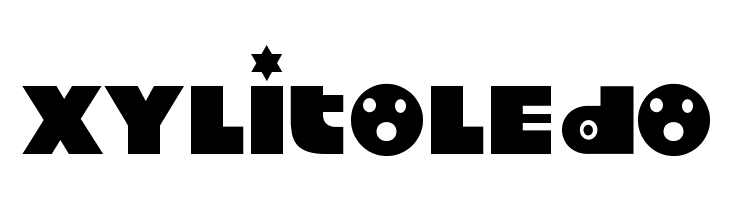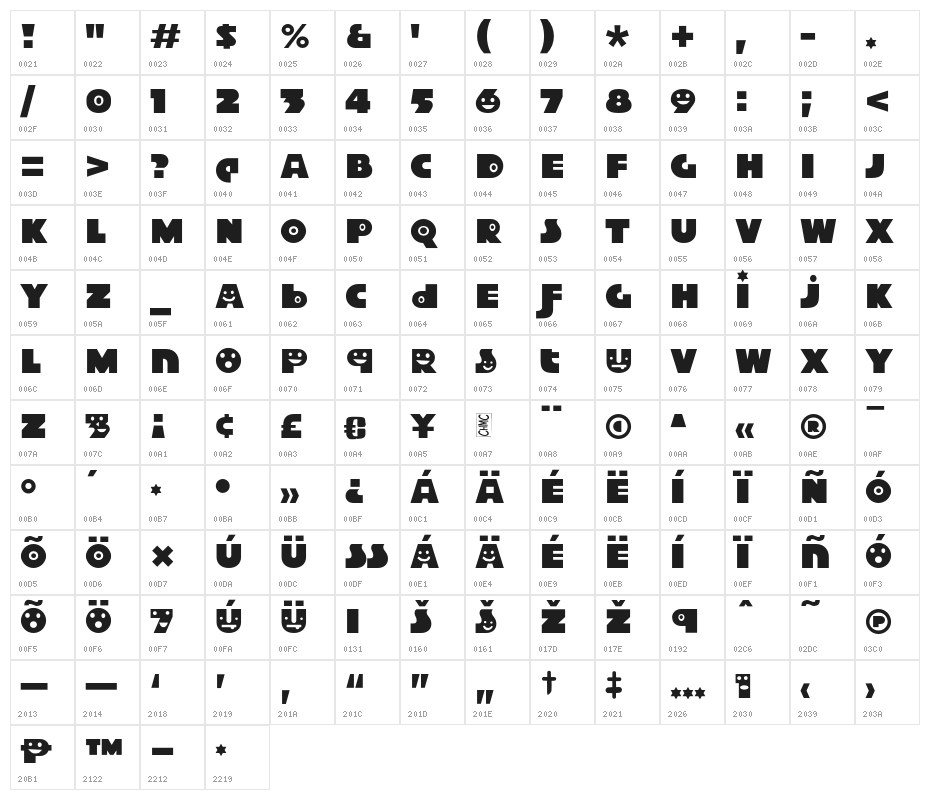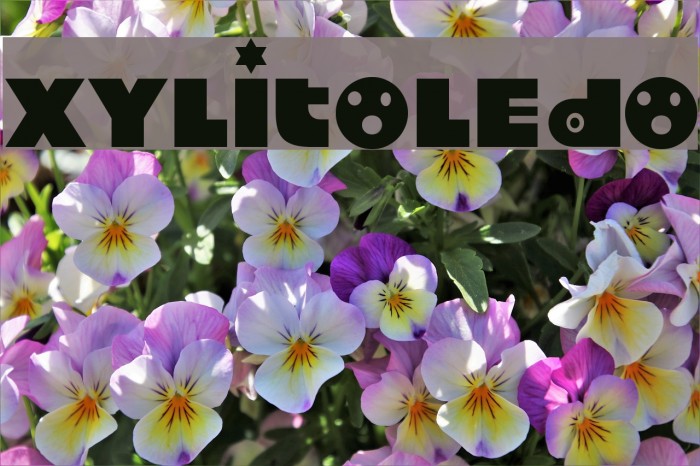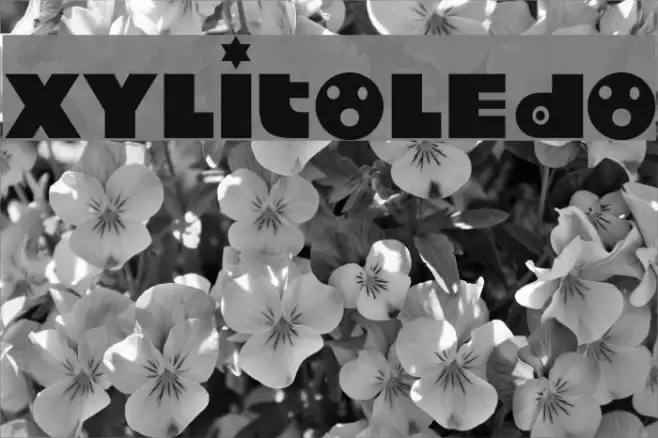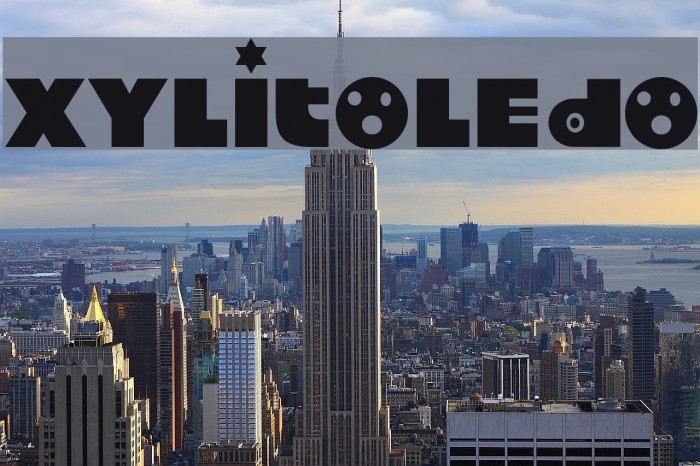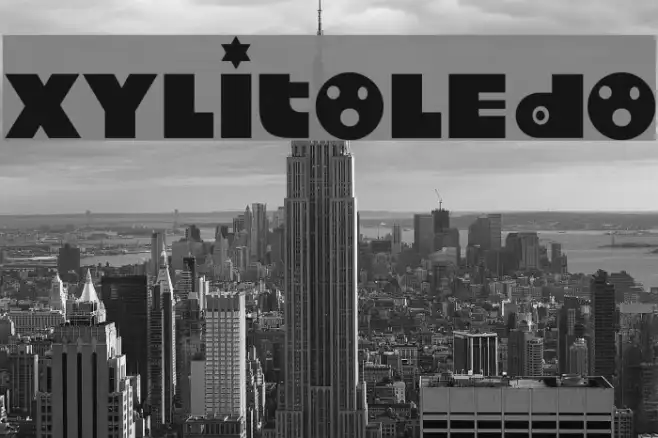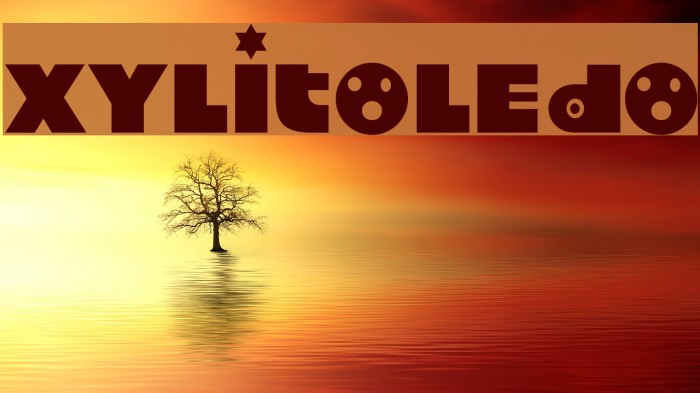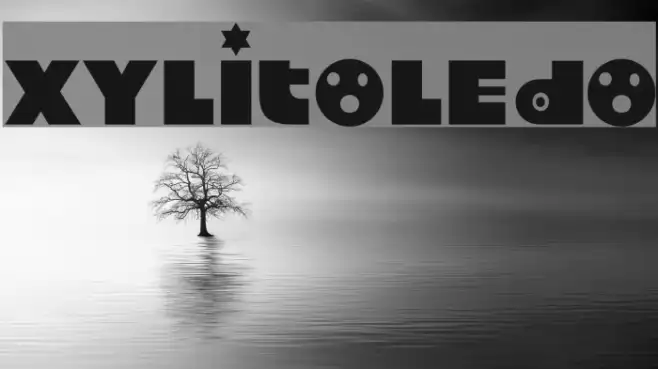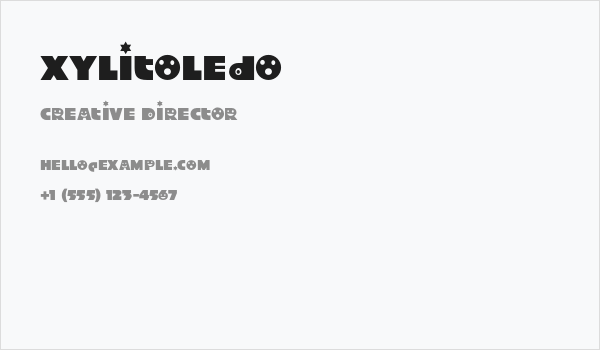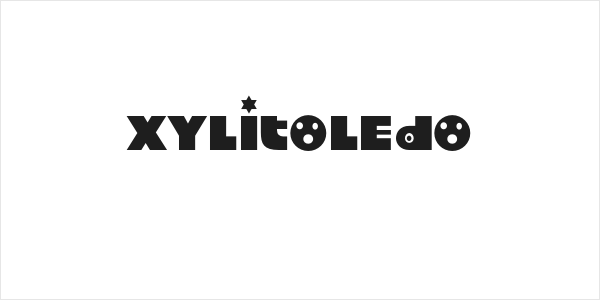
Xylitoledo Font
Xylitoledo Description
This playful and bold font features a unique and whimsical design, with characters that incorporate fun and quirky elements such as smiley faces and stars. The uppercase and lowercase letters maintain a consistent boldness, creating a strong visual impact. The numbers and special characters continue this playful theme, adding personality and charm to any text. The font's thick strokes and geometric shapes make it stand out, while the creative use of decorative elements adds a touch of humor and lightheartedness.